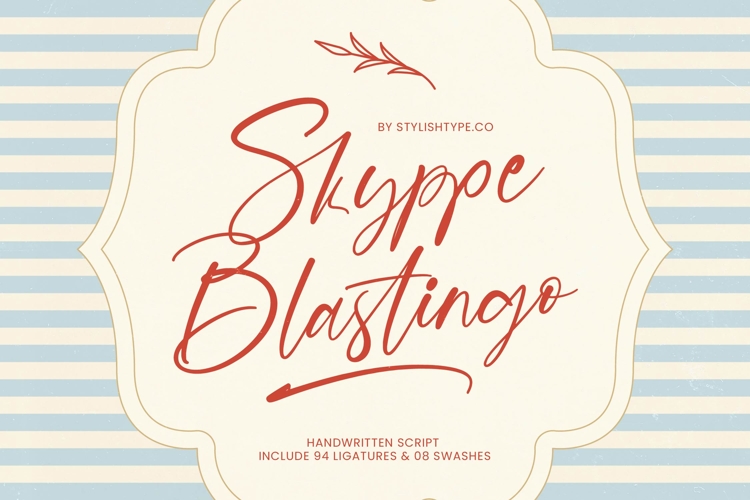
Skyppe Blastingo - Handwritten Script
Skyppe Blastingo - Handwritten Script adapts seamlessly across global markets, making it incredibly versatile for international projects. This global accessibility ensures that your message remains consistent and impactful, whether you are targeting local audiences or launching a large-scale international campaign.
Transform ordinary layouts into high-end experiences with a font perfect for elite design demands. Skyppe Blastingo - Handwritten Script is the ideal solution for luxury branding, high-end packaging design, and sophisticated editorial layouts. It is perfect for wedding invitations, social media graphics, and logo development where a premium signature style is required. By choosing Skyppe Blastingo - Handwritten Script, you invest in a versatile design asset that guarantees a professional and memorable finish.